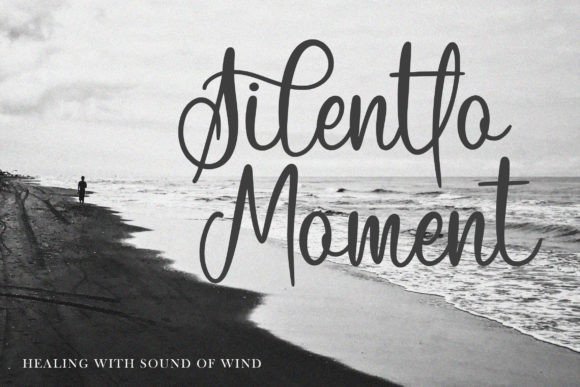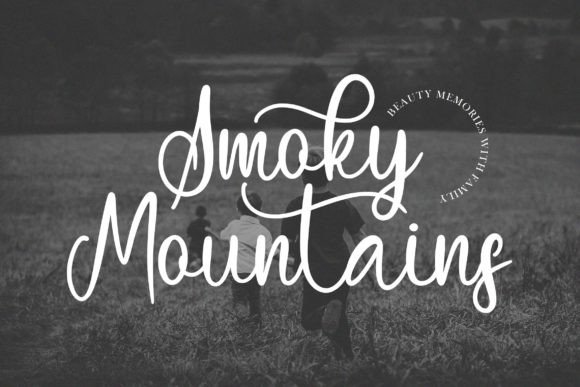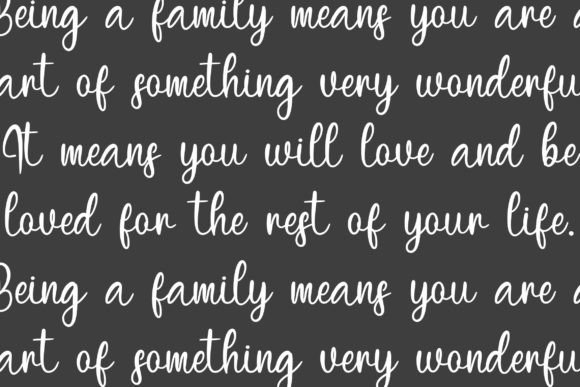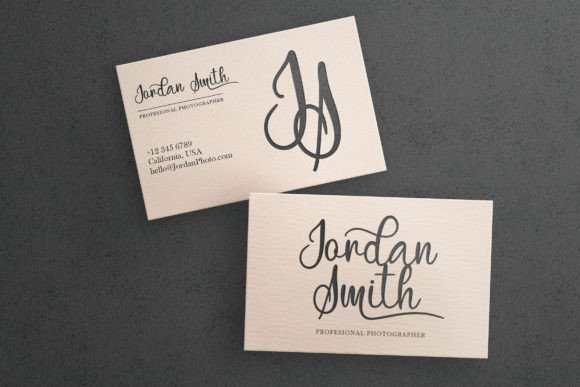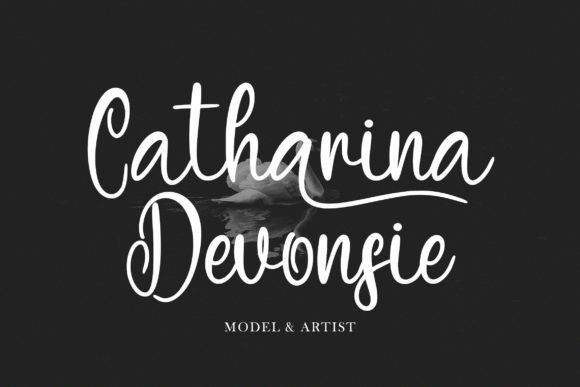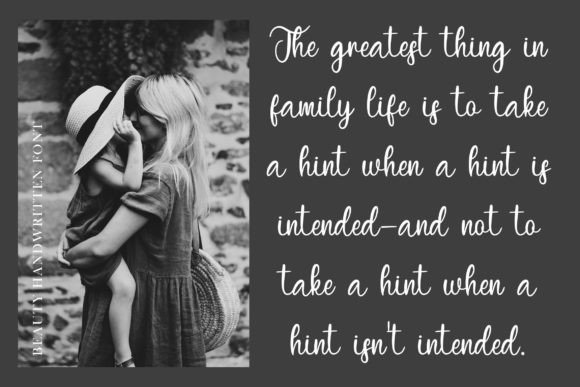
Adorable Script Font: Elevate Your Designs with a Personal Touch
Are you looking for a font that can add a personal touch to your designs? Look no further than the Adorable Script – Handwritten Monoline Font. This beautiful font features distinctive handwritten characters that are perfect for a wide range of projects, from branding and logos to wedding designs and product packaging.
What is Adorable Script Font?
Adorable Script – Handwritten Monoline Font is a carefully crafted font that mimics the look of handwritten text. Its monoline style gives it a clean and elegant appearance, making it suitable for a variety of applications. The font’s unique characters are designed to add a touch of personality to your designs, setting them apart from more traditional fonts.
Key Features of Adorable Script Font
- Handwritten style: The font features a beautiful, handwritten style that adds a personal touch to your designs.
- Monoline characters: The monoline style gives the font a clean and elegant appearance.
- Distinctive characters: Each character is carefully designed to be unique and eye-catching.
- Versatile: The font is suitable for a wide range of projects, from branding and logos to wedding designs and product packaging.
Uses for Adorable Script Font
The Adorable Script – Handwritten Monoline Font is perfect for a variety of projects, including:
- Branding projects: Use the font to create unique and memorable brand identities.
- Logos: The font’s distinctive characters make it ideal for creating eye-catching logos.
- Wedding designs: Add a touch of elegance to your wedding designs, such as invitations and stationery.
- Media posts: Use the font to create engaging and visually appealing social media posts.
- Advertisements: The font’s clean and elegant appearance makes it perfect for use in advertisements.
- Product packaging: Add a personal touch to your product packaging with the Adorable Script font.
- Product designs: Use the font to create unique and eye-catching product designs.
- Labels: The font is perfect for creating labels that stand out.
- Photography: Use the font to add a touch of elegance to your photography, such as watermarks and captions.
- Invitations: Create beautiful and unique invitations with the Adorable Script font.
- Stationery: Use the font to create personalized stationery that reflects your brand’s personality.
Why Choose Adorable Script Font?
There are many reasons why you should choose the Adorable Script – Handwritten Monoline Font for your next project. Here are just a few:
- Unique and eye-catching: The font’s distinctive characters will help your designs stand out.
- Personal touch: The handwritten style of the font adds a personal touch to your designs.
- Versatile: The font is suitable for a wide range of projects.
- Elegant and clean: The monoline style gives the font a clean and elegant appearance.
Tips for Using Adorable Script Font
Here are a few tips for using the Adorable Script – Handwritten Monoline Font:
- Use it sparingly: The font’s distinctive characters can be overwhelming if used too much. Use it sparingly to add a touch of elegance to your designs.
- Pair it with other fonts: The Adorable Script font pairs well with other fonts, such as sans-serif fonts.
- Experiment with colors: The font looks great in a variety of colors, so don’t be afraid to experiment.
The Adorable Script – Handwritten Monoline Font is a beautiful and versatile font that is perfect for designers and crafters looking to add a personal touch to their designs. With its distinctive handwritten characters and clean monoline style, it’s suitable for a wide range of projects, from branding and logos to wedding designs and product packaging. Whether you’re looking to create unique and eye-catching designs or simply want to add a touch of elegance to your projects, the Adorable Script font is a great choice.